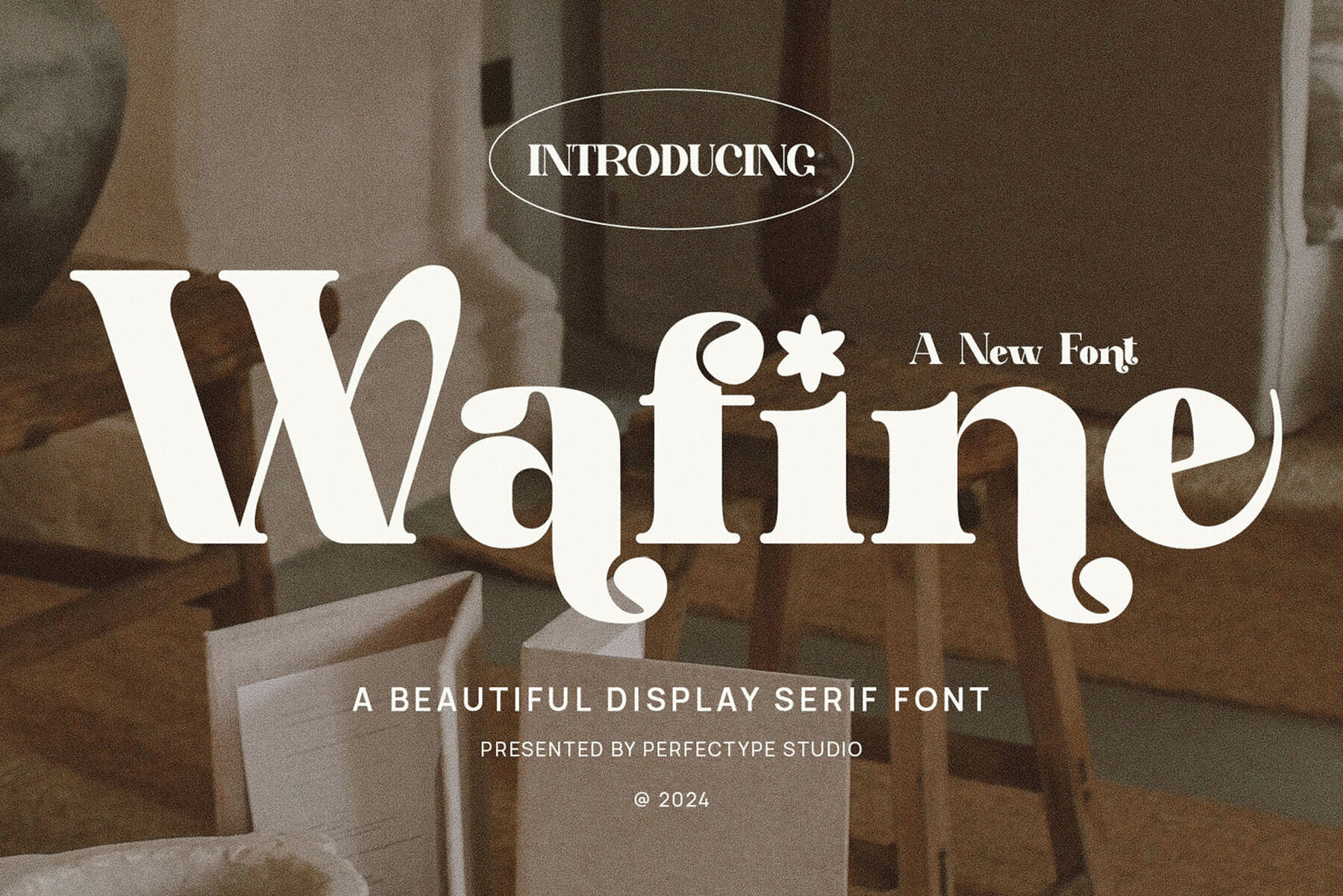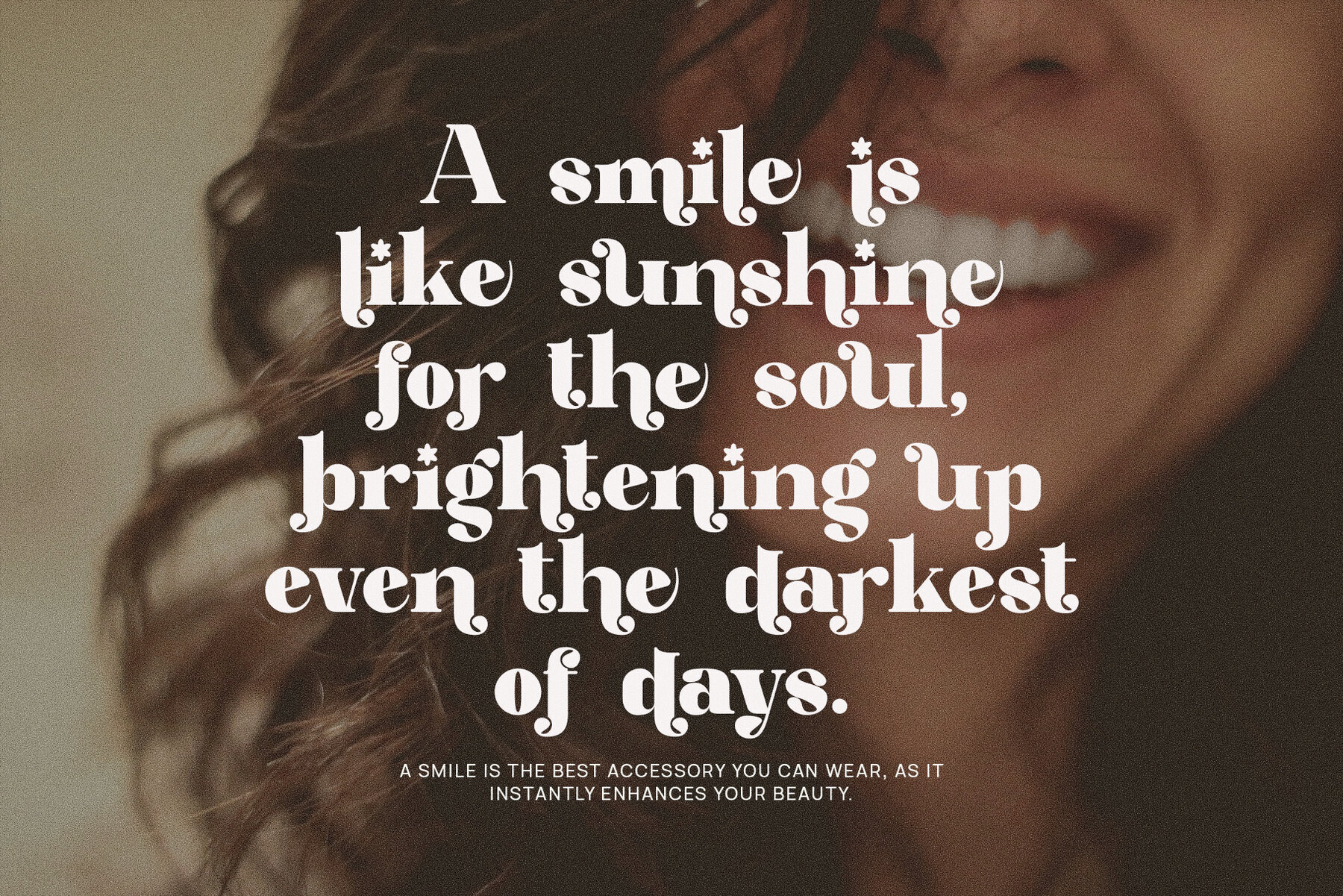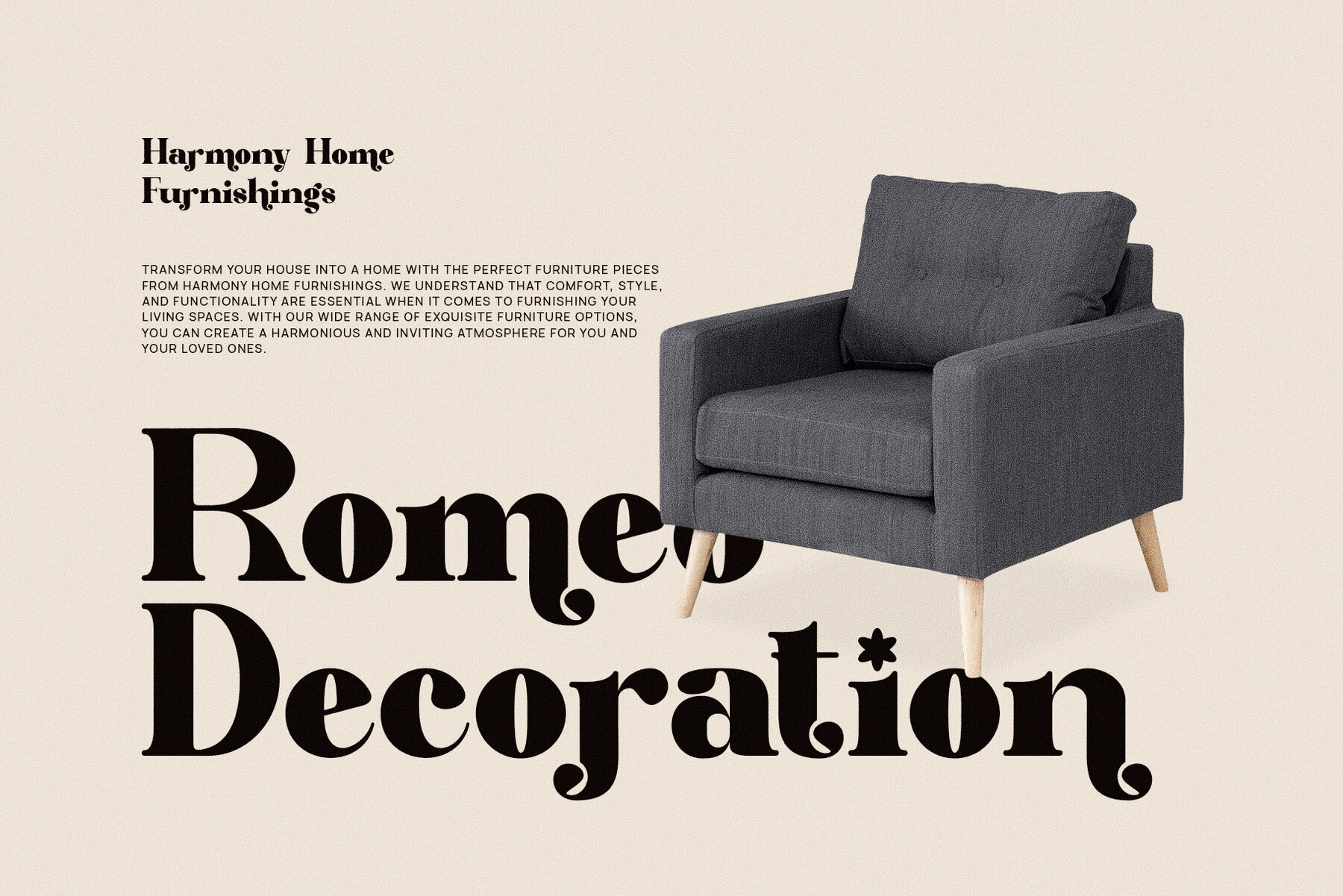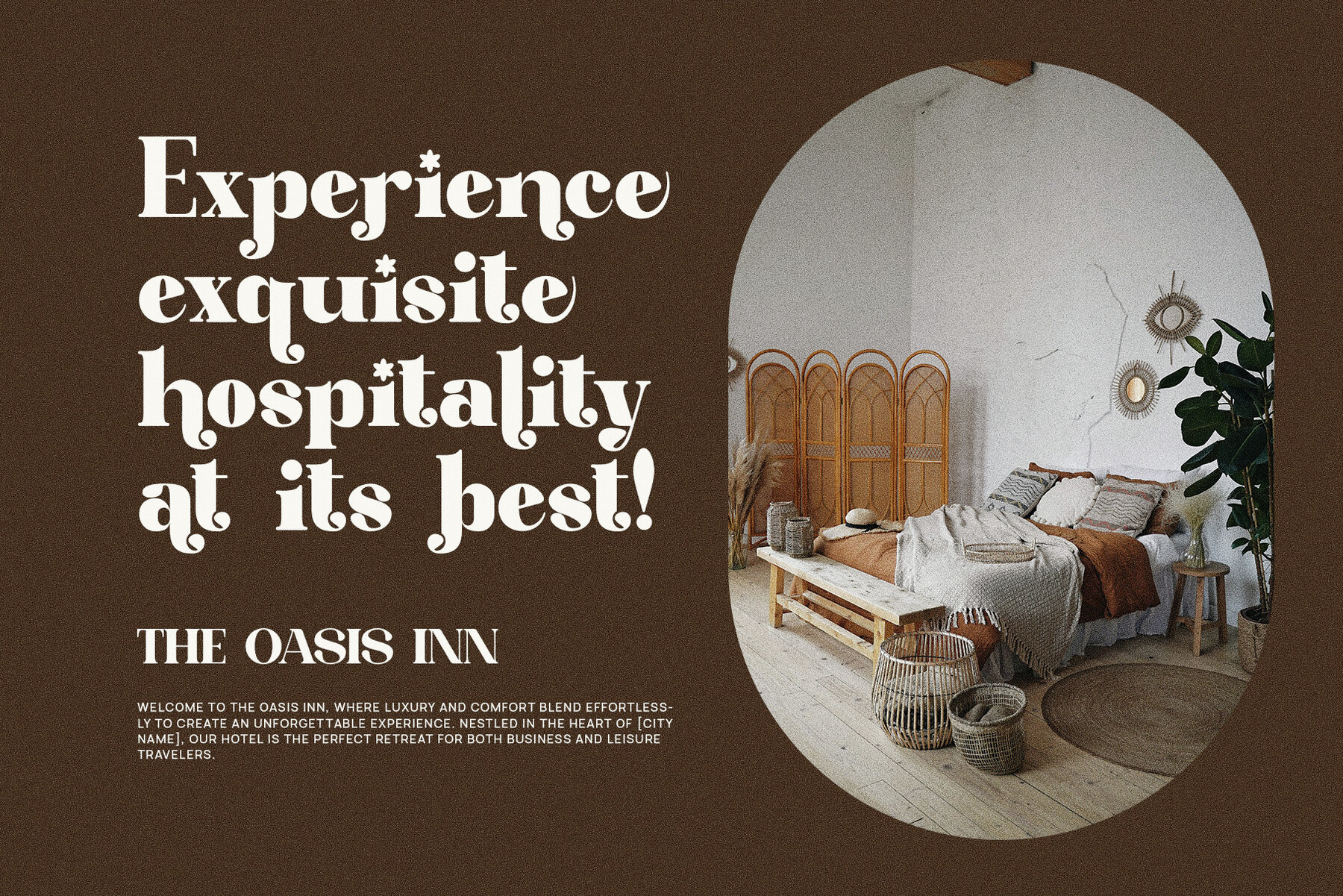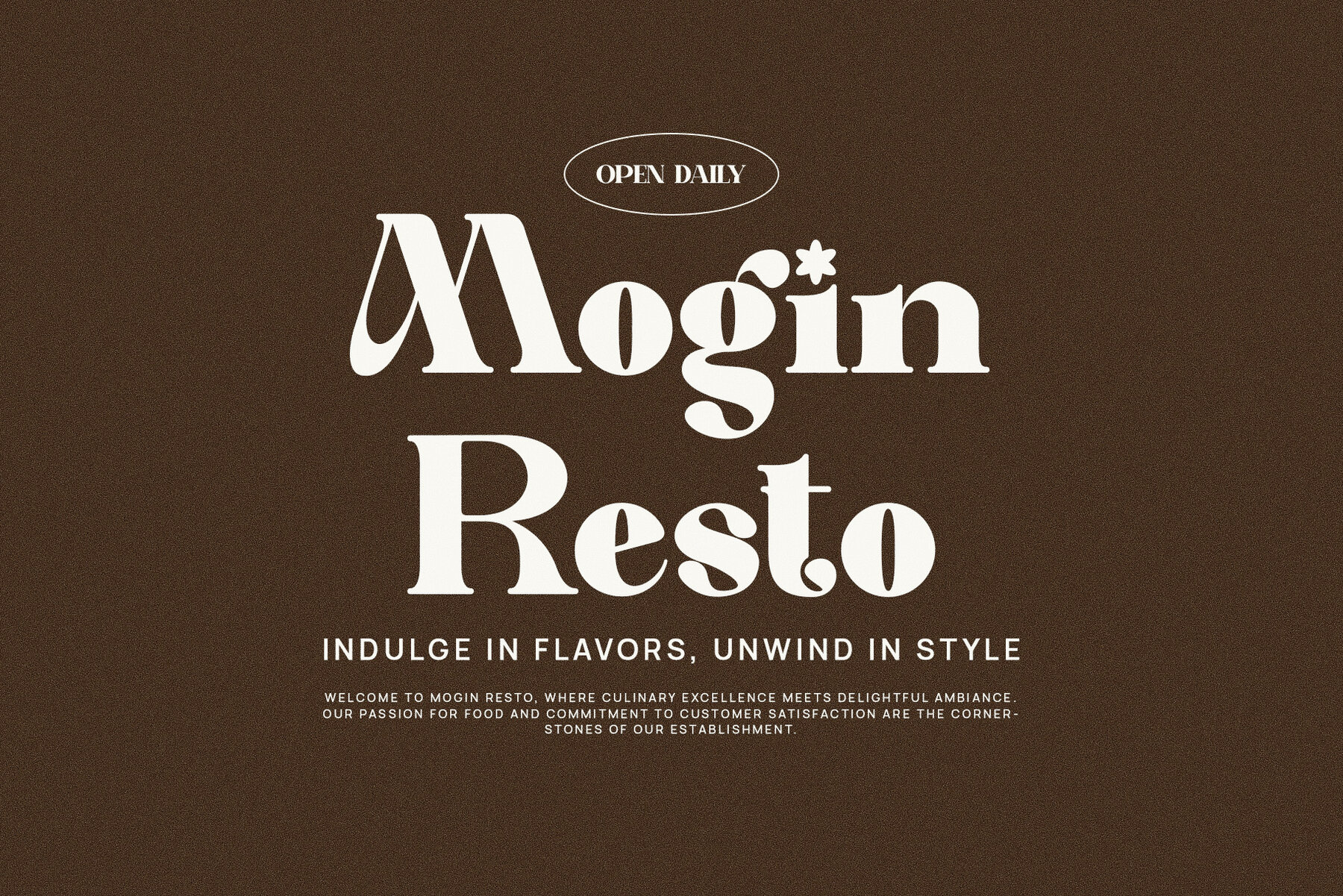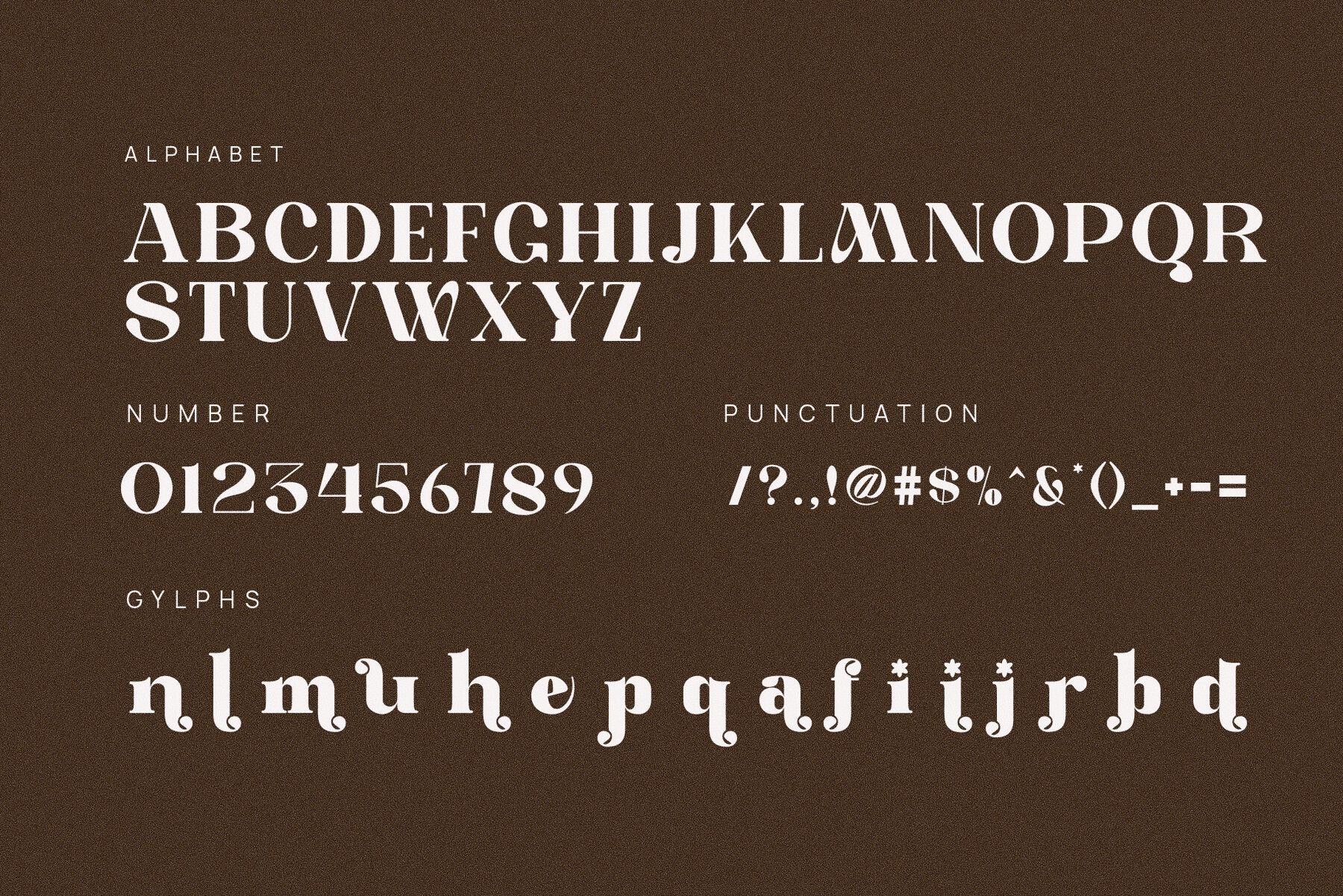
Wafine Font
Wafine
Wafine Elegant Serif Font exemplifies refined sophistication, perfect for creating a lasting impression. Built on a classic serif foundation, it exudes timeless elegance complemented by contemporary detailing for a fresh, stylish twist. This unique blend of tradition and modernity ensures that Wafine is both graceful and purposeful, making it suitable for projects that demand a balance of beauty and professionalism. Ideal for crafting logos, designing chic magazine layouts, or refining luxury branding, this typeface allows for designs that resonate with class and detail.
What distinguishes Wafine are its stunning ligatures, offering delicate, flowing connections between letters that add artistry and fluidity to the text. These ligatures unify the content, creating a visual rhythm guiding the reader's eye effortlessly. Wafine's versatility shines in high-end creative endeavors, from product advertising to premium editorial design, due to its seamless transition from body text to headlines without losing its refined character. This typeface is not just about beauty; it embodies class and sophistication, crafting designs that are both stylish and memorable with its exquisite ligatures and balanced letterforms.